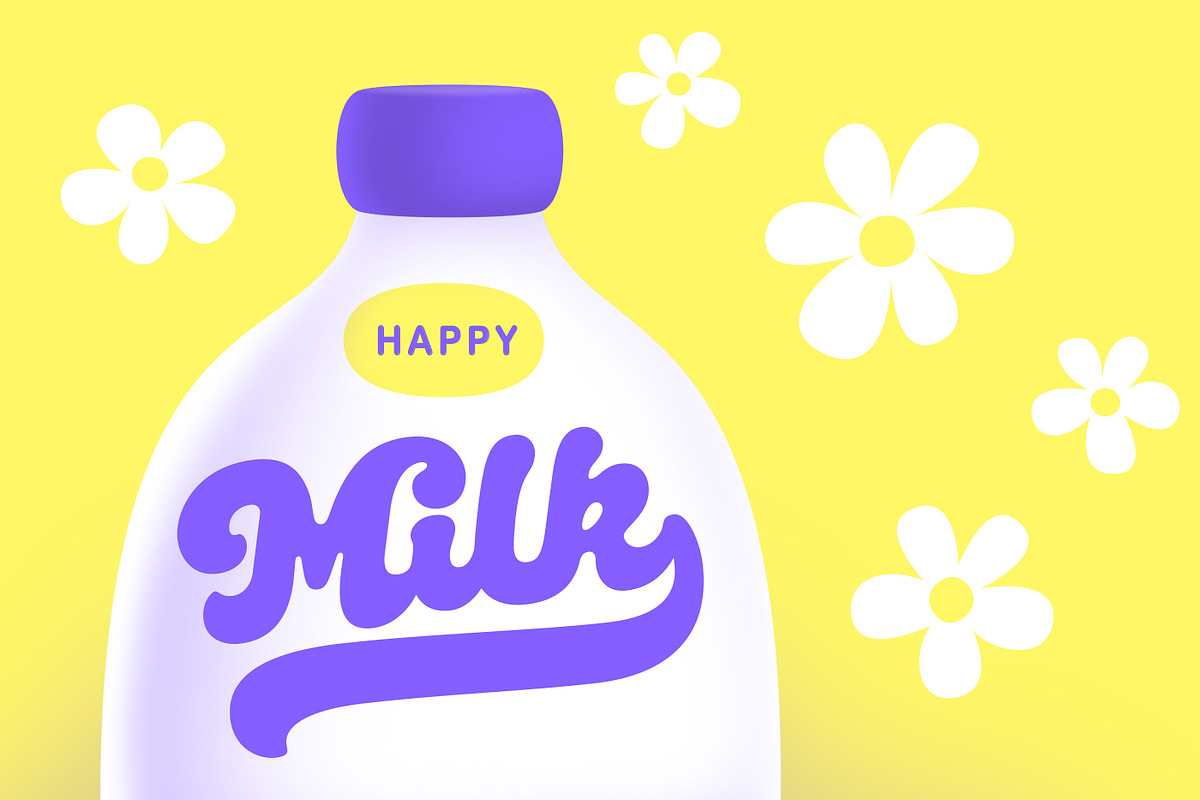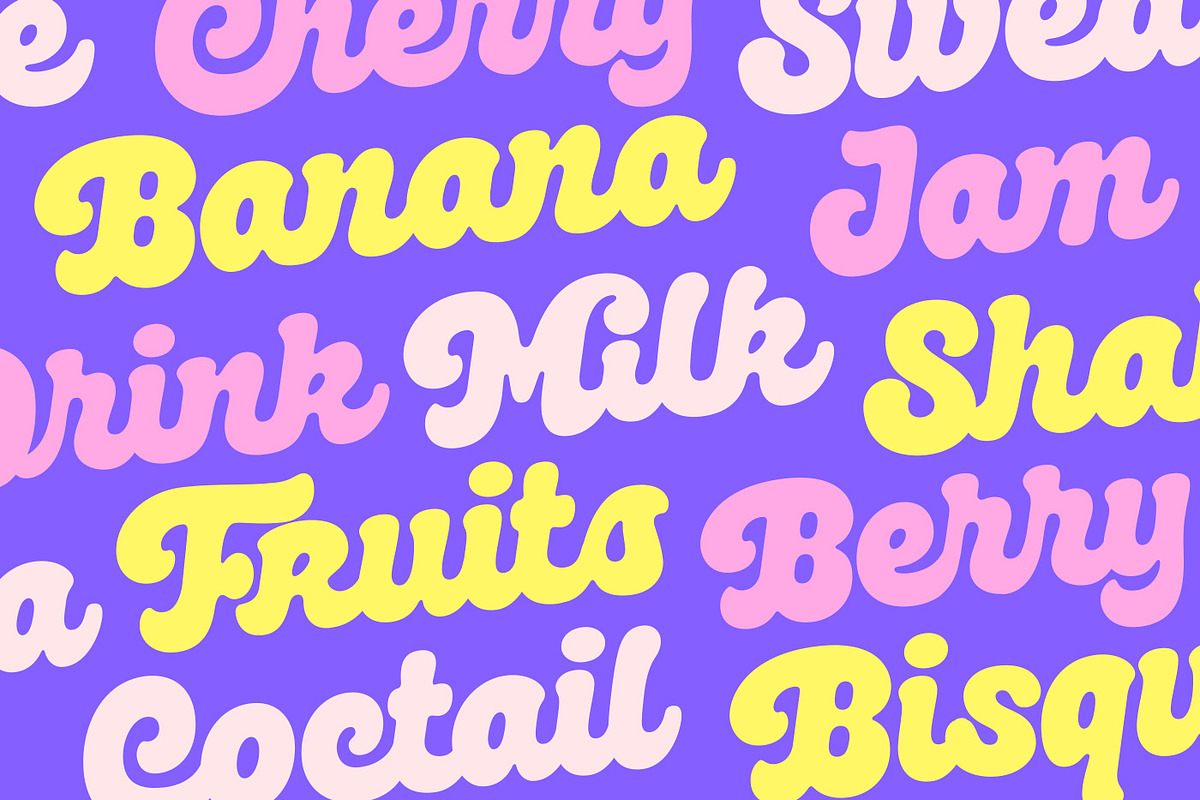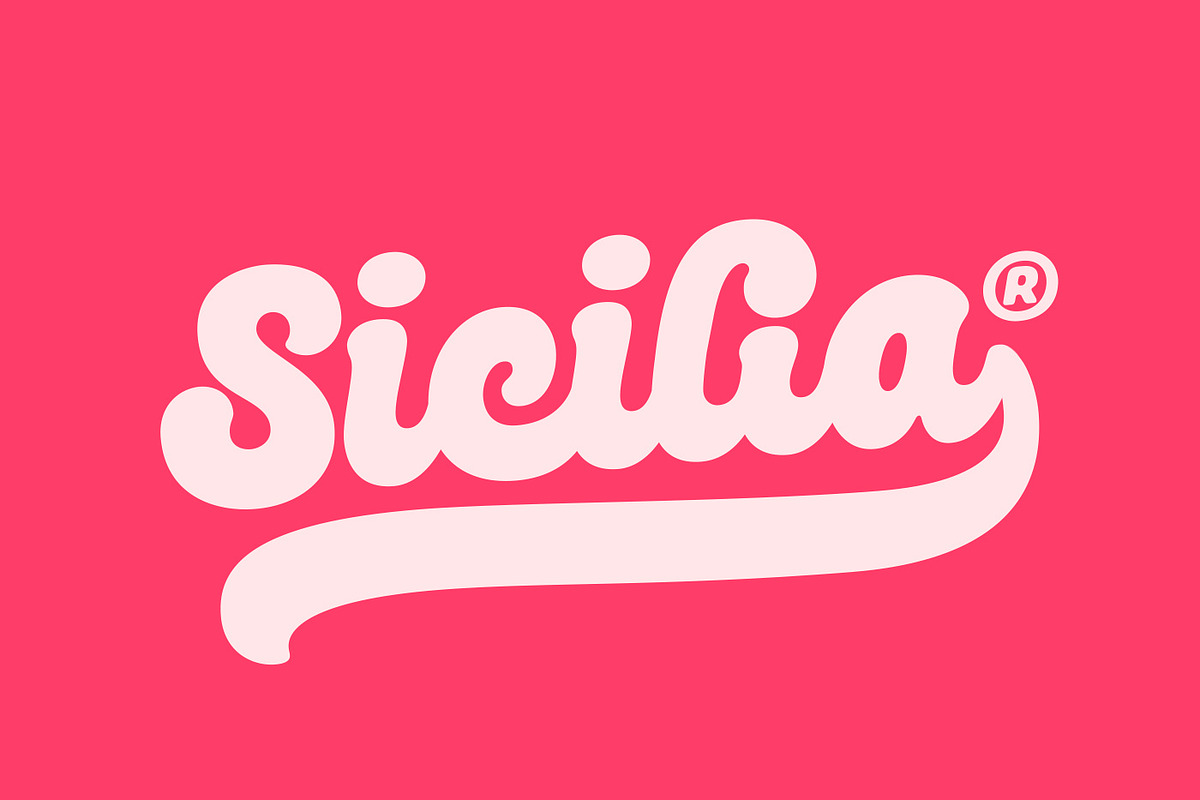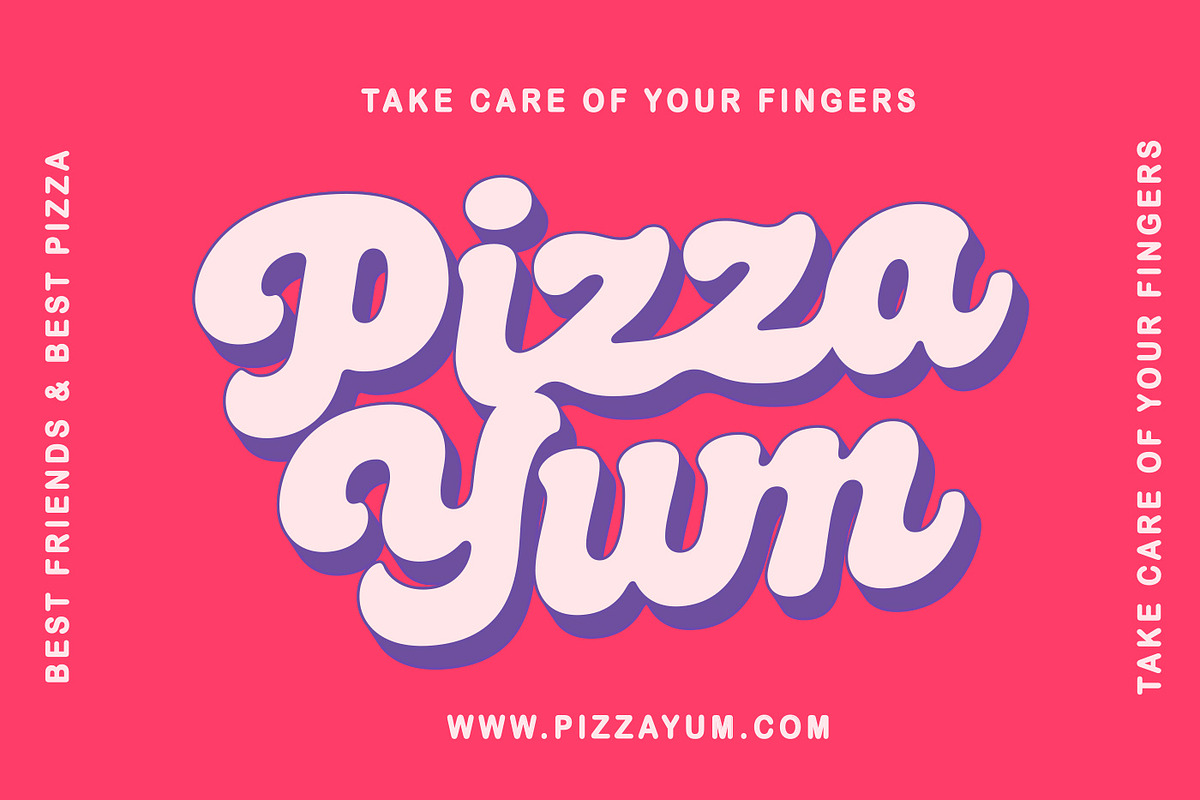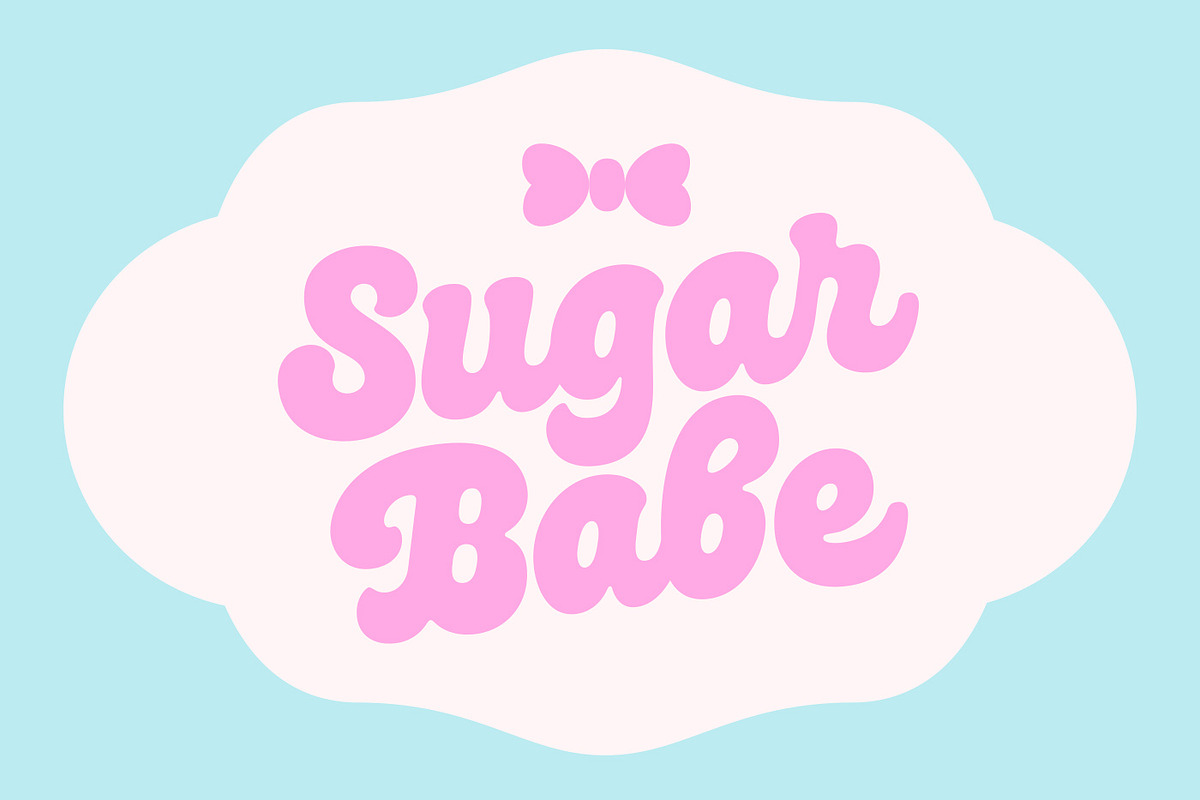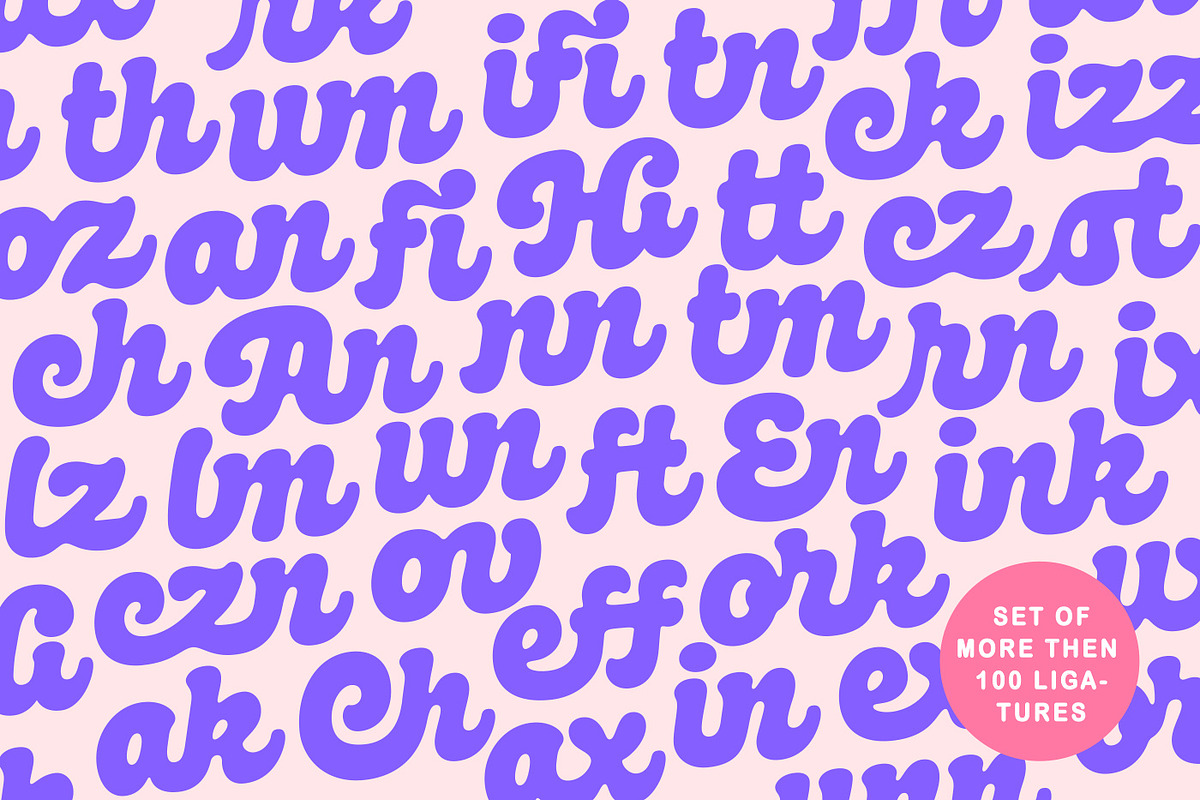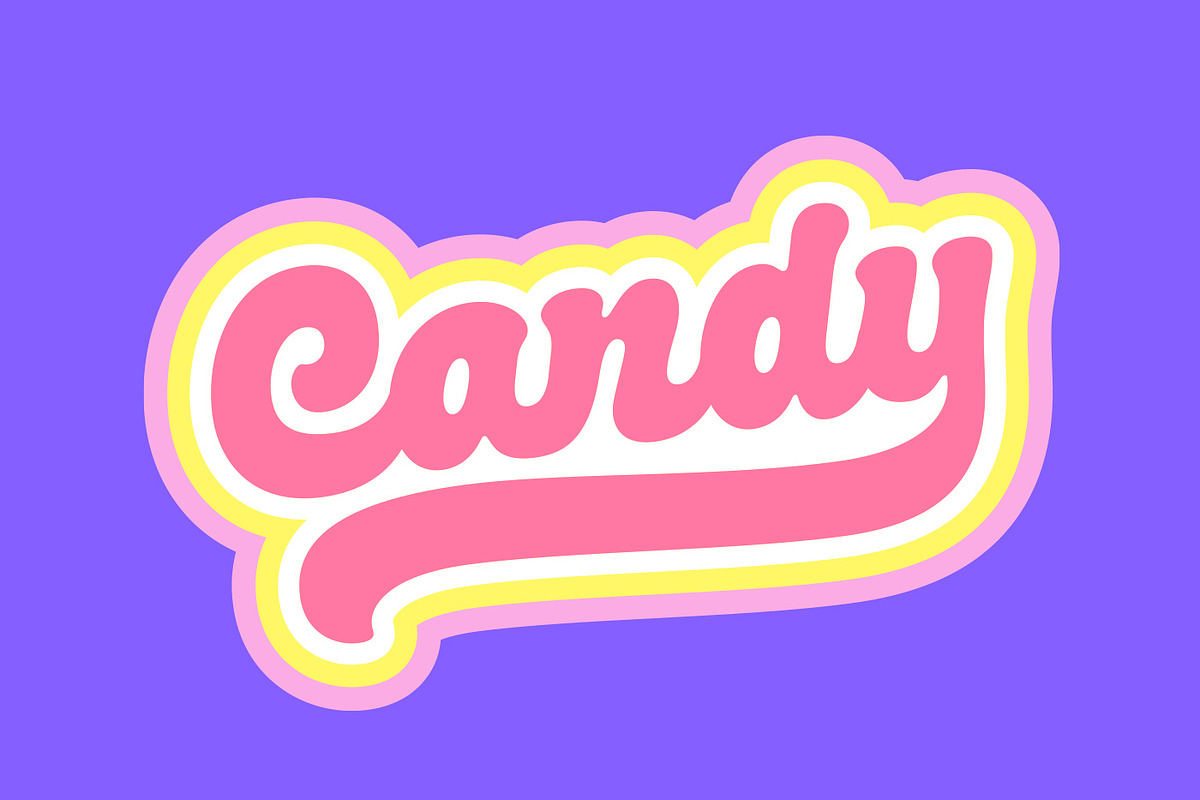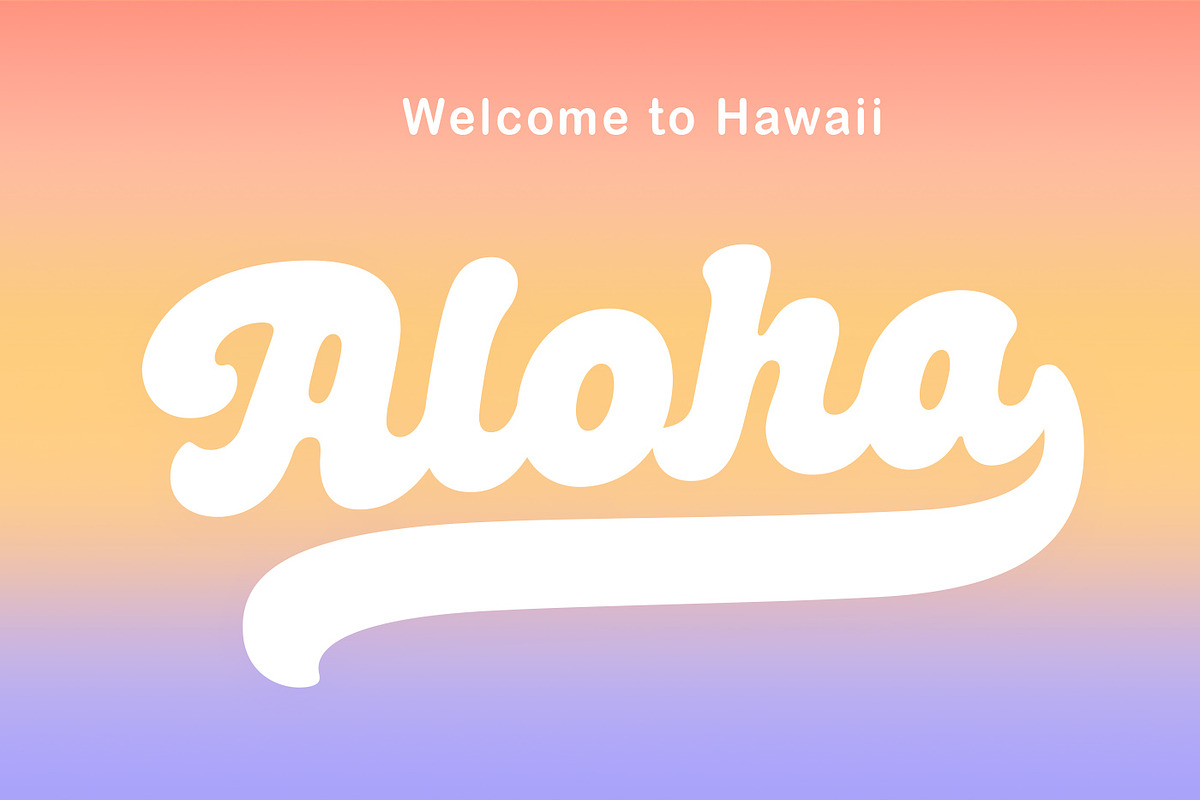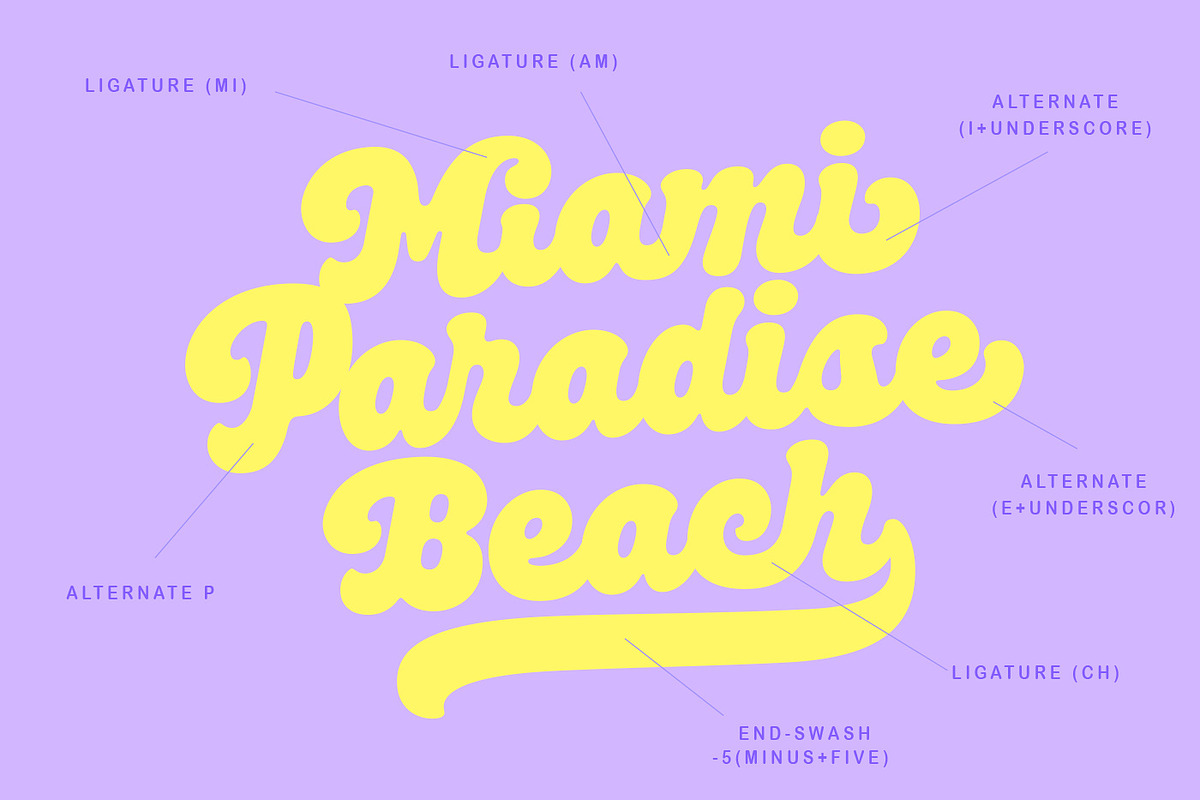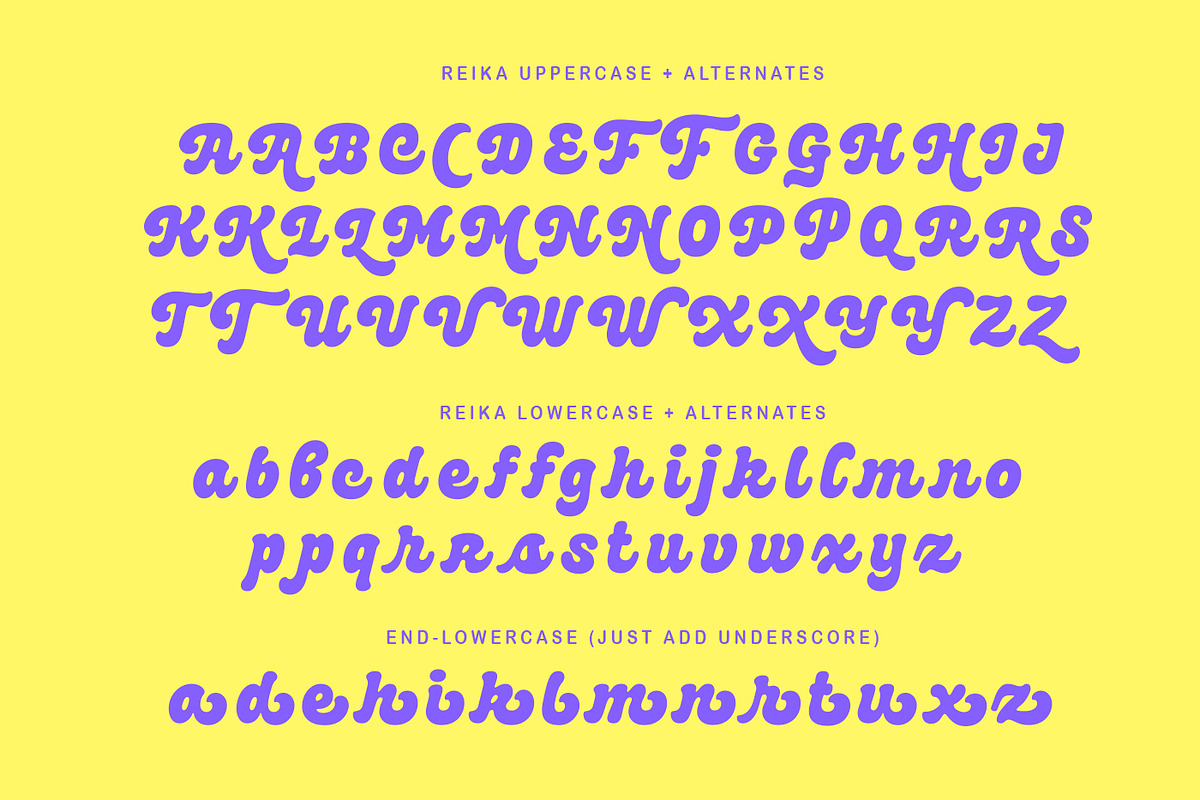
Reika Script
Reika is a super soft and cheerful script font inspired by the fun mood of summer, simple street food, and refreshing drinks. It’s all about smiles, delicious moments, and carefree time spent with family and friends.
Reika flows smoothly thanks to 95 Standard Ligatures like ak, ch, ck, th, in, im, ax, ux, and many more. It also includes Stylistic Alternates for some uppercase and lowercase letters, along with 12 end-swashes (tails) of varying lengths.
This font is perfect for logo and packaging design, especially in the food industry, as well as for kids' products, sweets, and other cheerful, lighthearted themes.
- Alternates - just add «2»
- End-letter - just add «underscore» after Lowercase
- End-swashes (tails) - just add -1, -2, -3…up to -12, where number is length of tail.